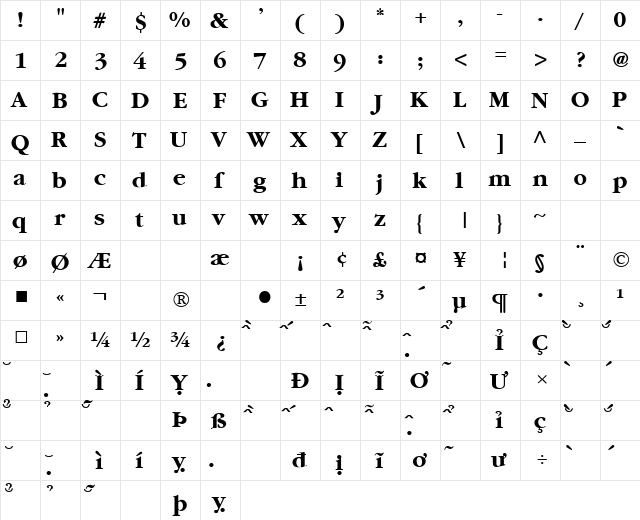
VNI-Garam Bold Font Preview
VNI-Garam Bold
VNI-Garam Bold Font Details
Design Context for VNI-Garam Typeface
VNI-Garam offers clean, dependable letterforms without strong stylistic allegiance, making it a practical choice for designers who need flexibility. Its bold stroke weight gives it real presence on the page.